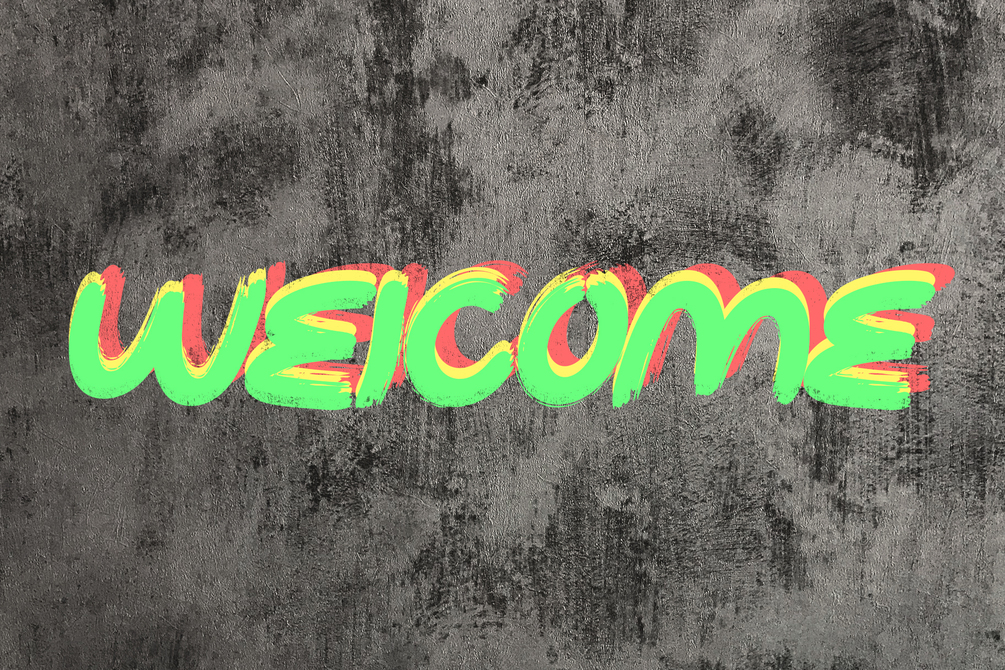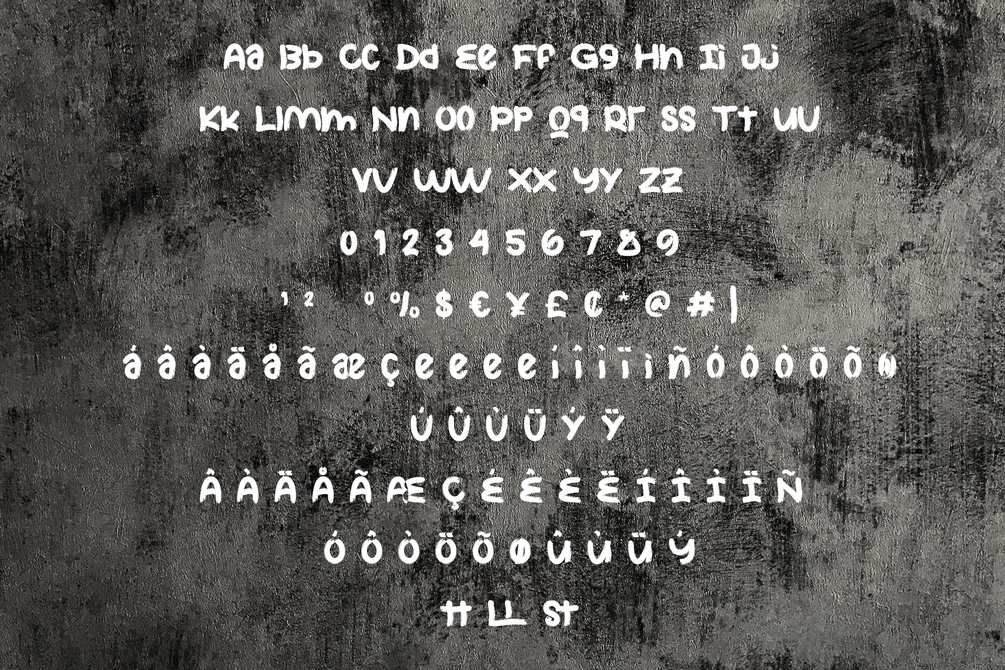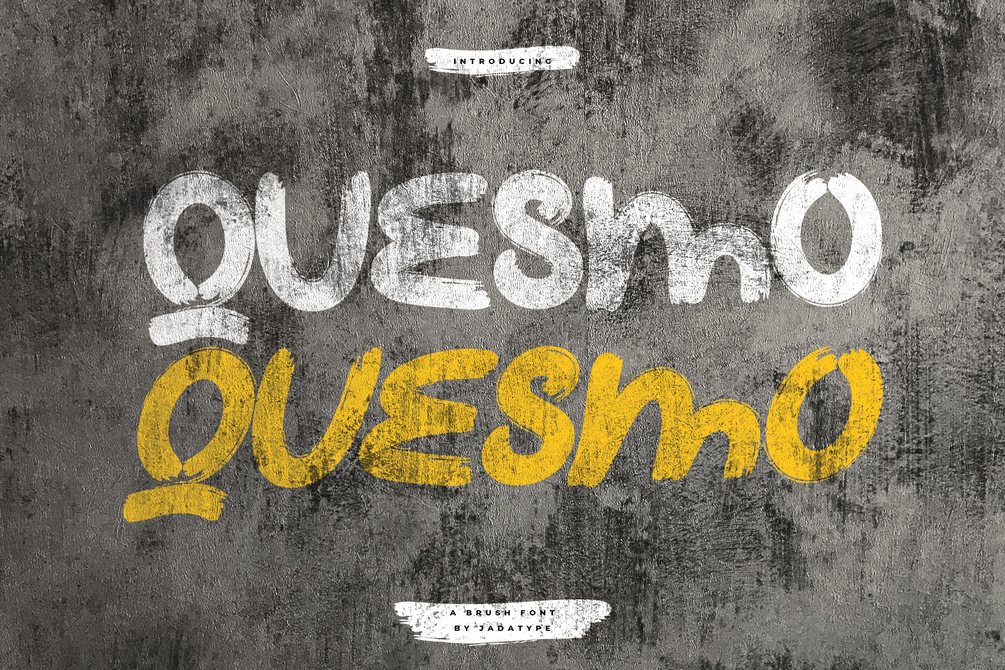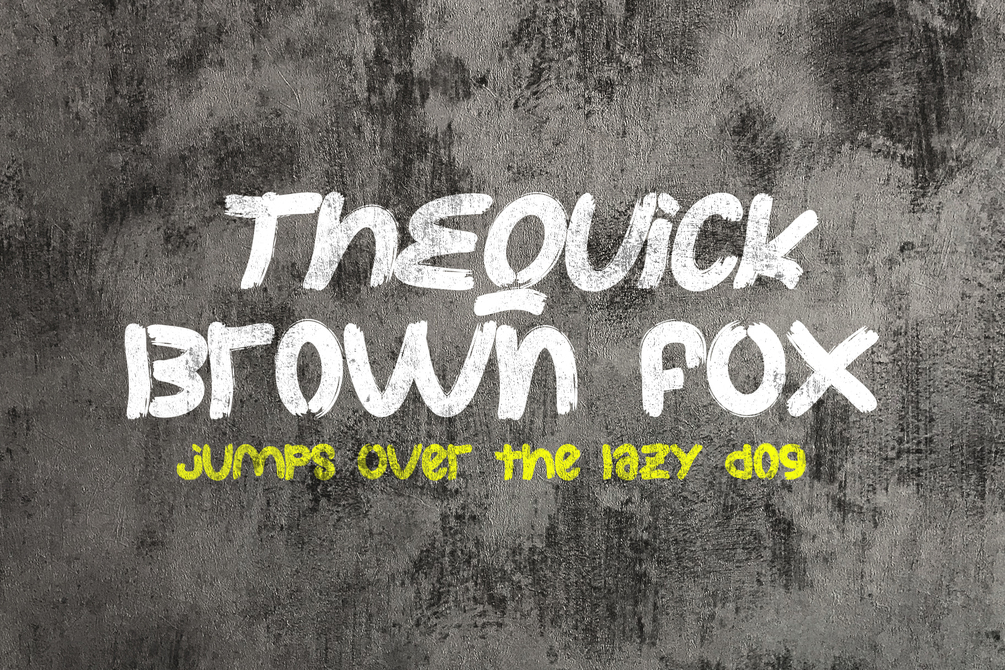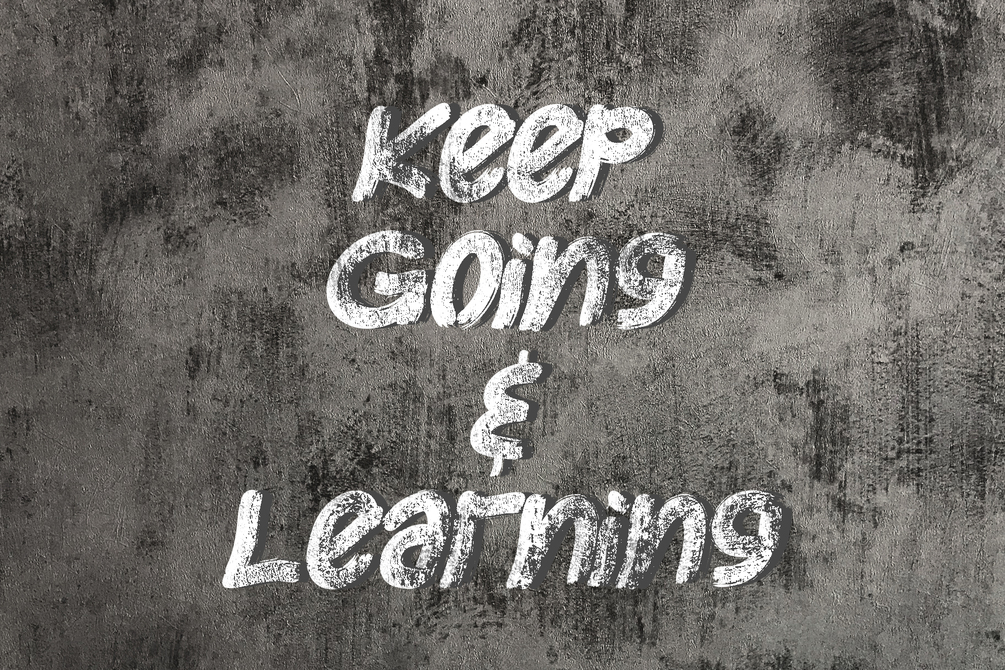
Quesmo Font
Quesmo is a display font with a bold brush style. suitable for social media, event, branding, advertisements, and so on. contains standard English letters, numbers, punctuation, and several accents that support multilingualism.
• Regular & Italic